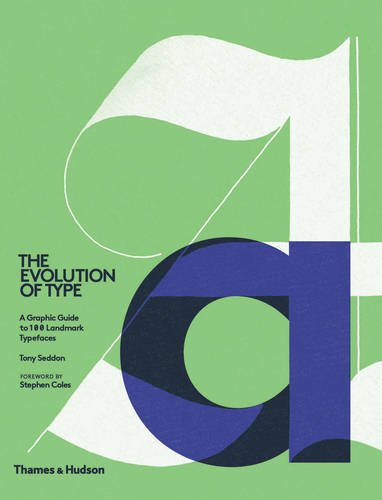
The Evolution of Type : A Graphic Guide to 100 Landmark Typefaces
A journey through the development of type design and typographic style from Gutenberg to the latest digital fonts
Chosen to represent the key elements of form used by the punch cutters, calligraphers and designers of their day, and presented in chronological order by release date, each typeface is discussed in terms of its origins and its impact on the design and print industries, and considerations for screen use.
Versions released in metal type for hand-setting and for the Monotype and Linotype machines, as phototype, and as digital revivals or originals, are covered in detail alongside information about the people responsible for the design and development of each adaptation.
Key glyphs are annotated to indicate features that mark out how typeface design has evolved over the last 500 or so years. Visual comparisons illustrate how typefaces created years ago have influenced contemporary designs.
For the general reader, this book offers a thorough history of the typefaces we have been reading for decades; for typographers and designers, it is a valuable resource that will help to inform their choice of the most appropriate typeface for any project.
Tony Seddon is a freelance designer, project manager and writer. He has written or co-written nearly ten books, among them Type Team and Greetings from Retro Design, both published by Thames & Hudson.
Stephen Coles is an editor, typographer and author of The Geometry of Type.